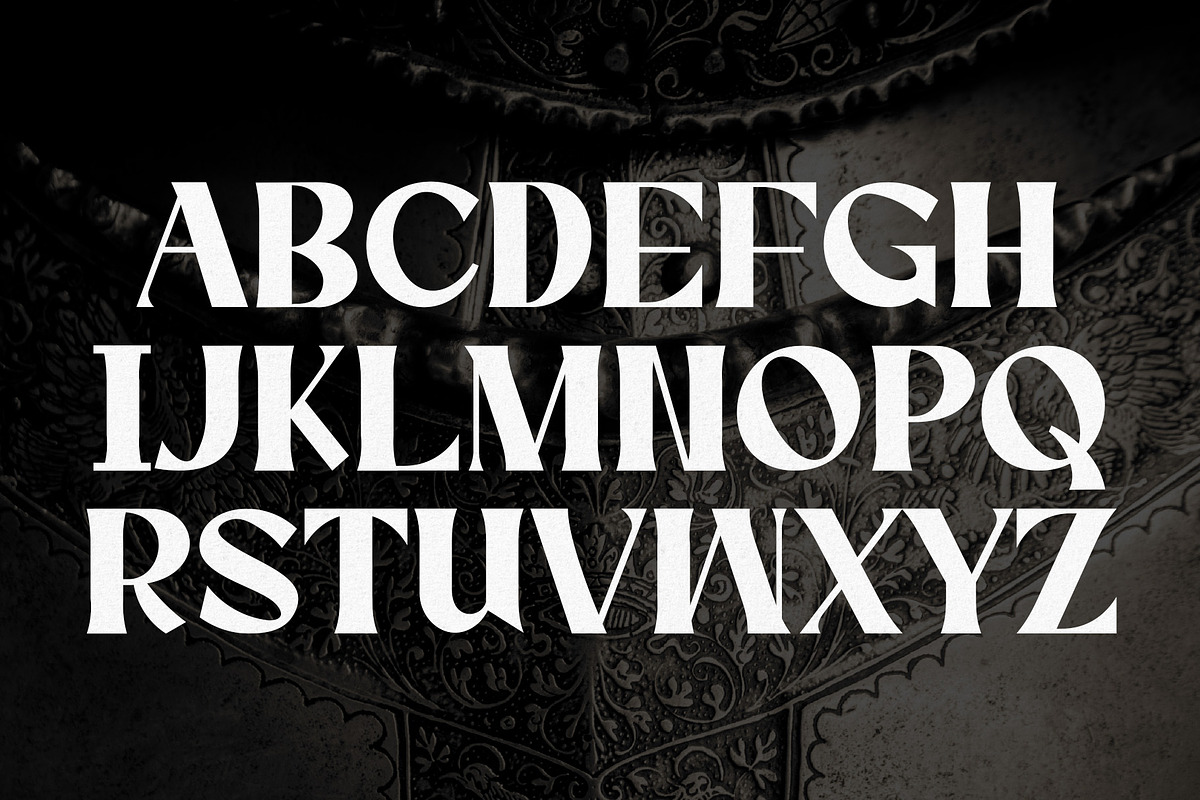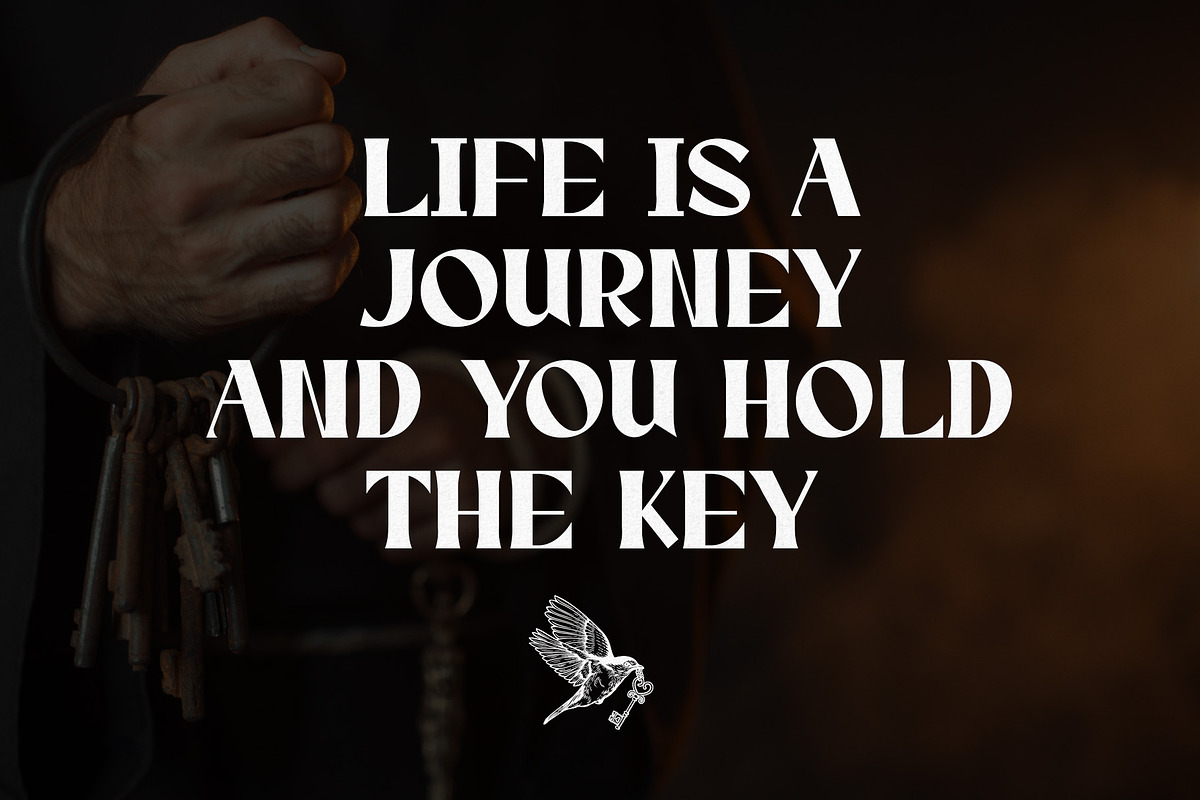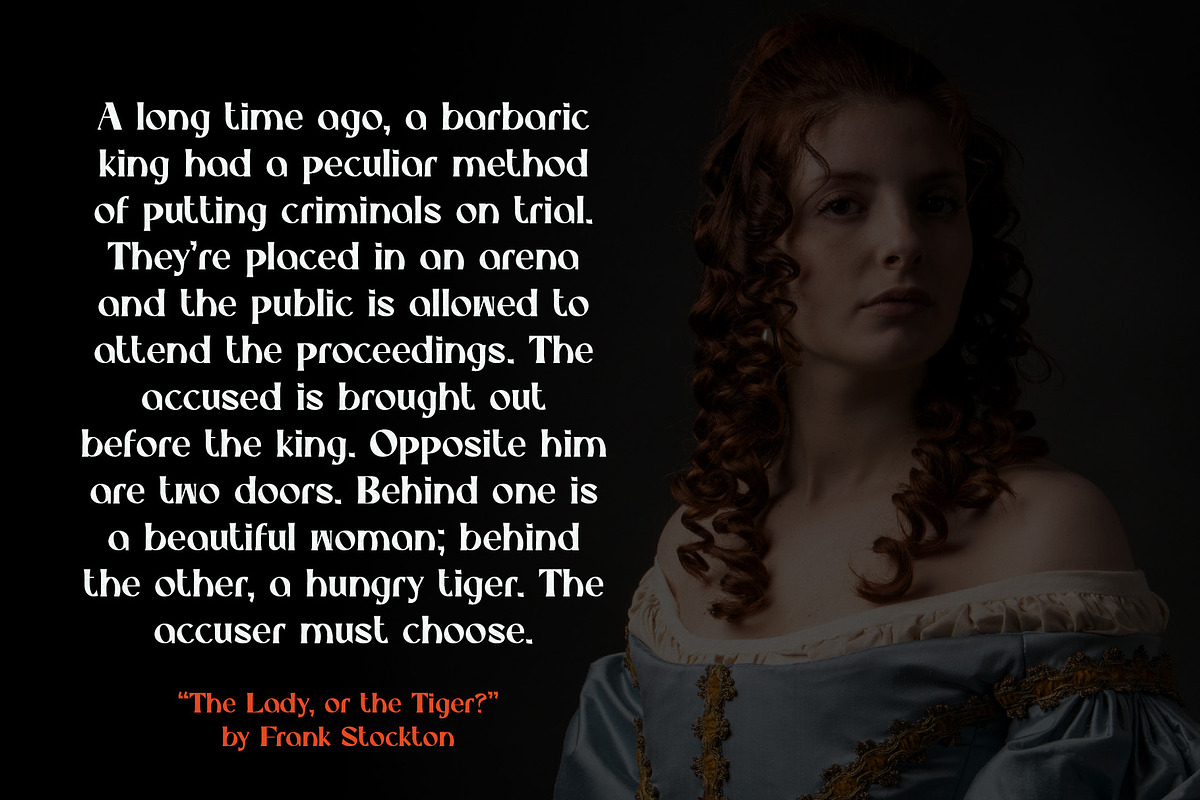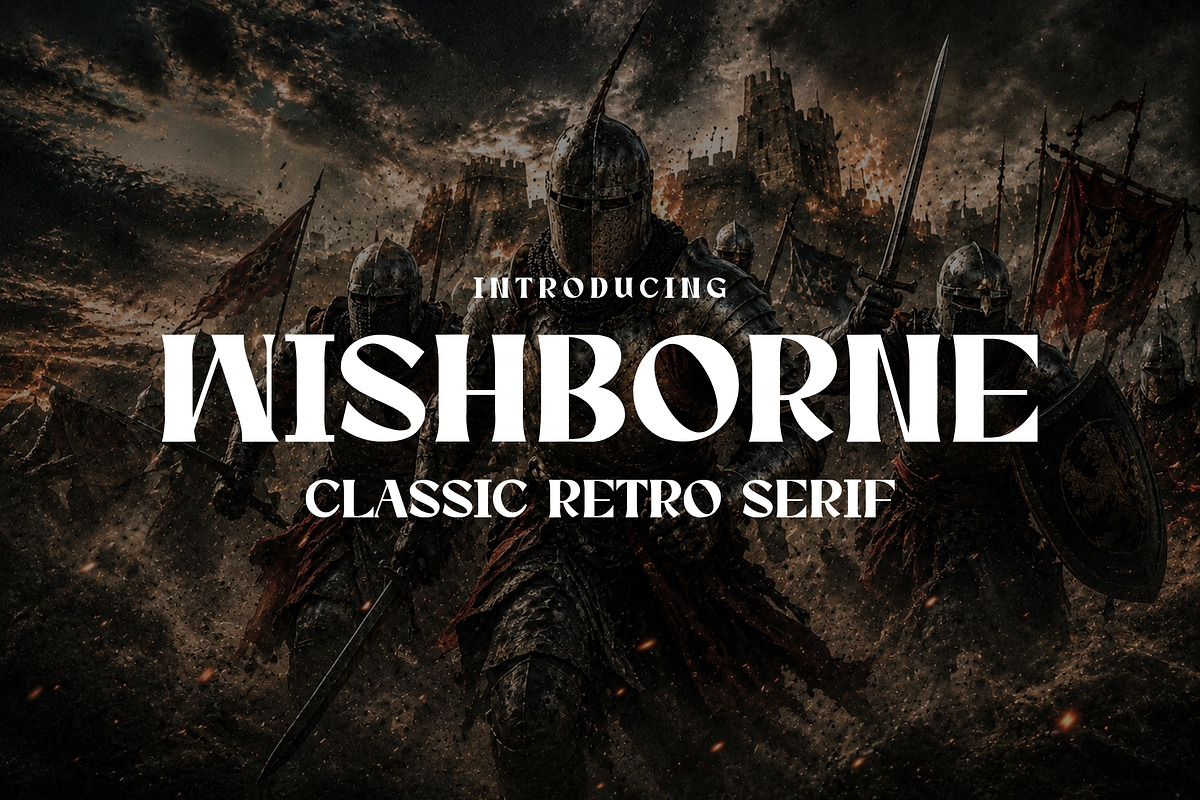
Wishborne - Medieval Serif
Wishbone is a classic serif typeface inspired by medieval typography. Its letters are rough and sharp, giving it a bold and complex personality. The font is perfect for branding, historical projects, book covers, magazines, posters, weddings, social media posts, websites, product packaging, stationery design, advertising, quotes, special events, and more. Wishbone is simple, easy to read, and works well in header and body text. Enjoy!